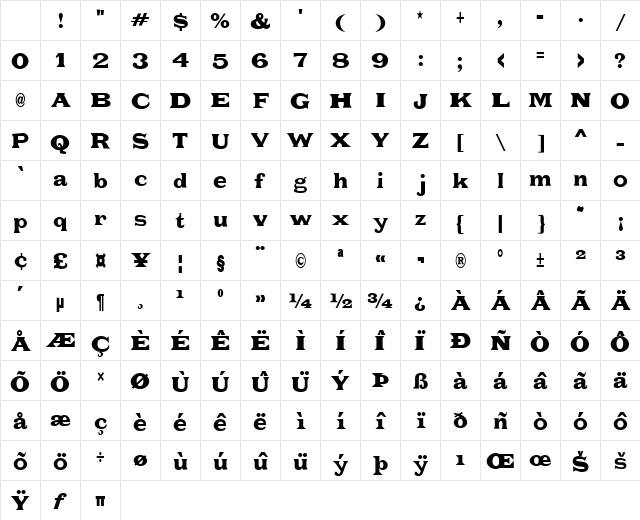
Complete Fat Legs Semi-expanded Heavy glyph index. Displaying only characters natively supported by Fat Legs Semi-expanded Heavy font.
Fat Legs is a composed and adaptable typeface that performs quietly and consistently across a wide range of design contexts.